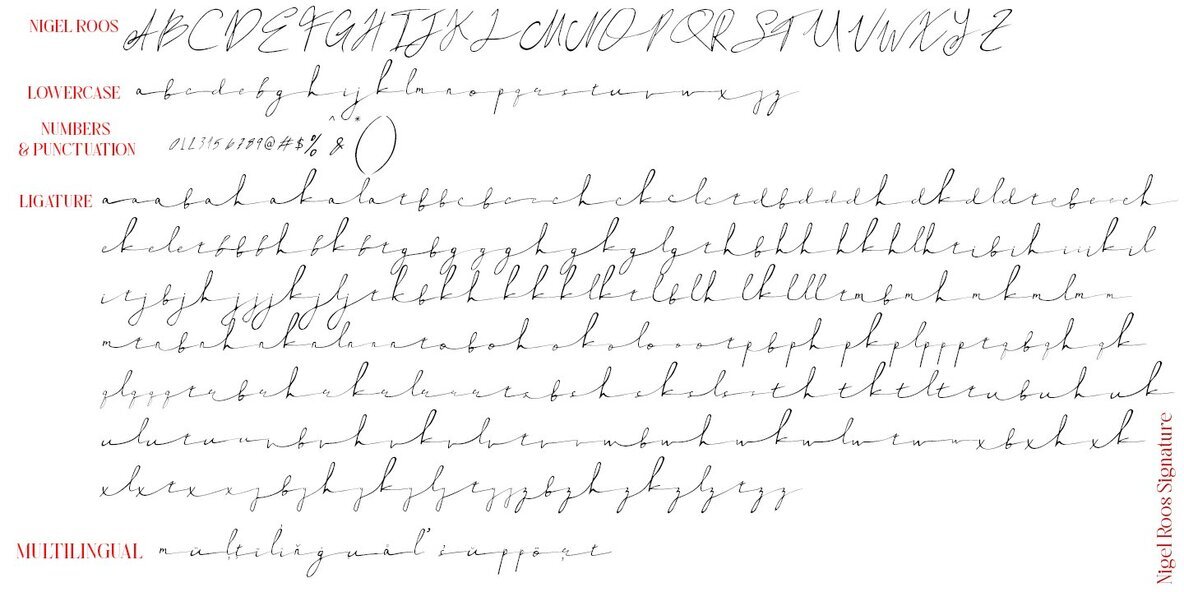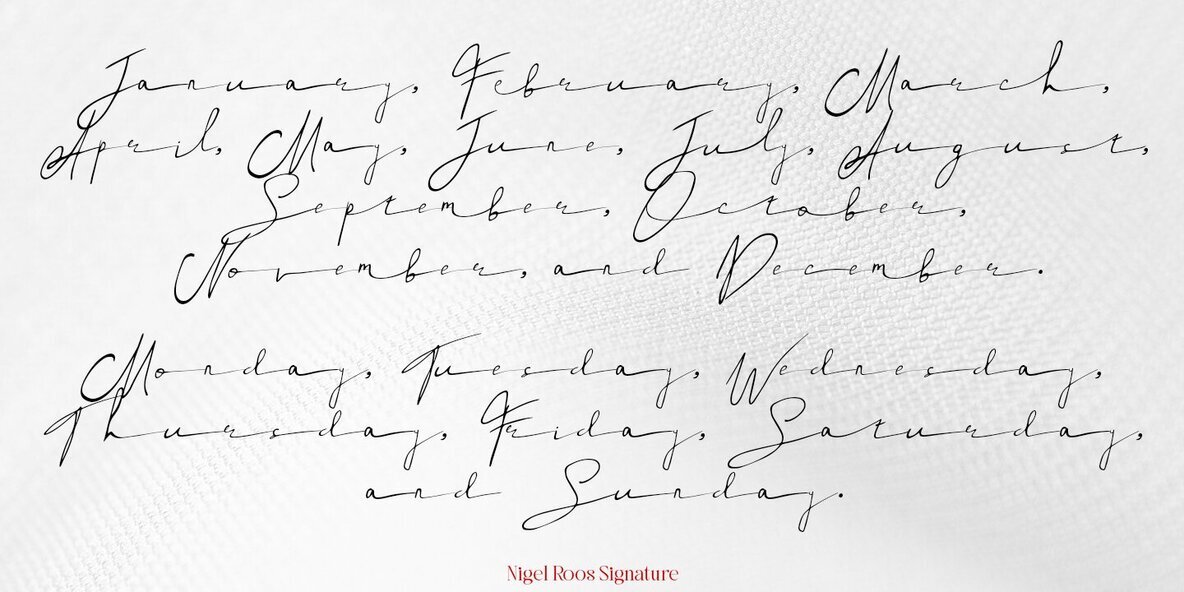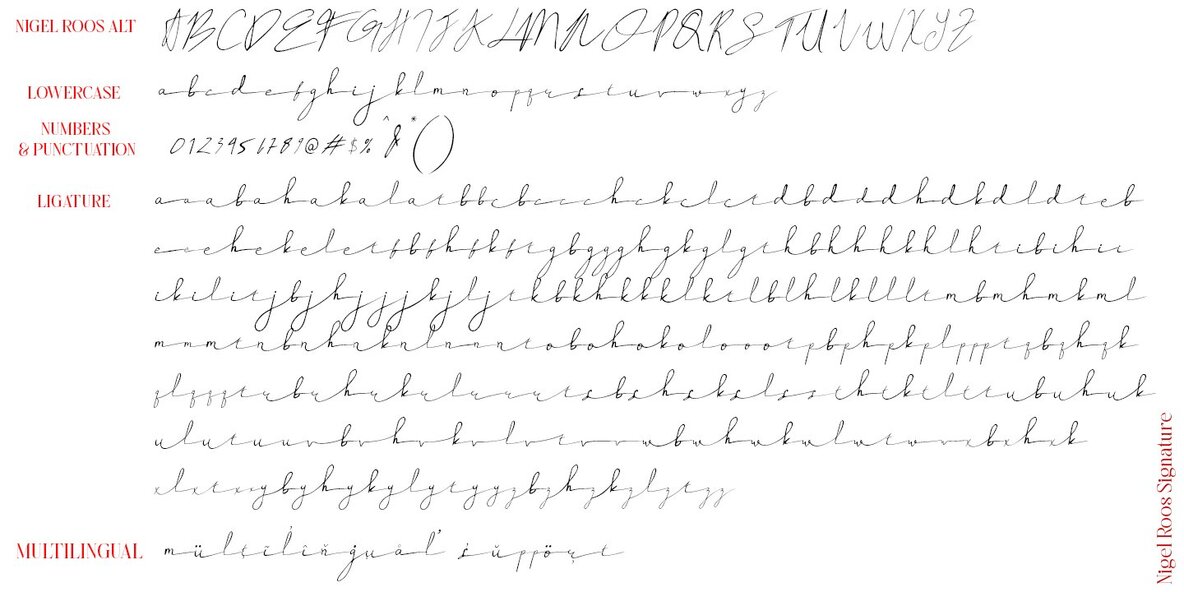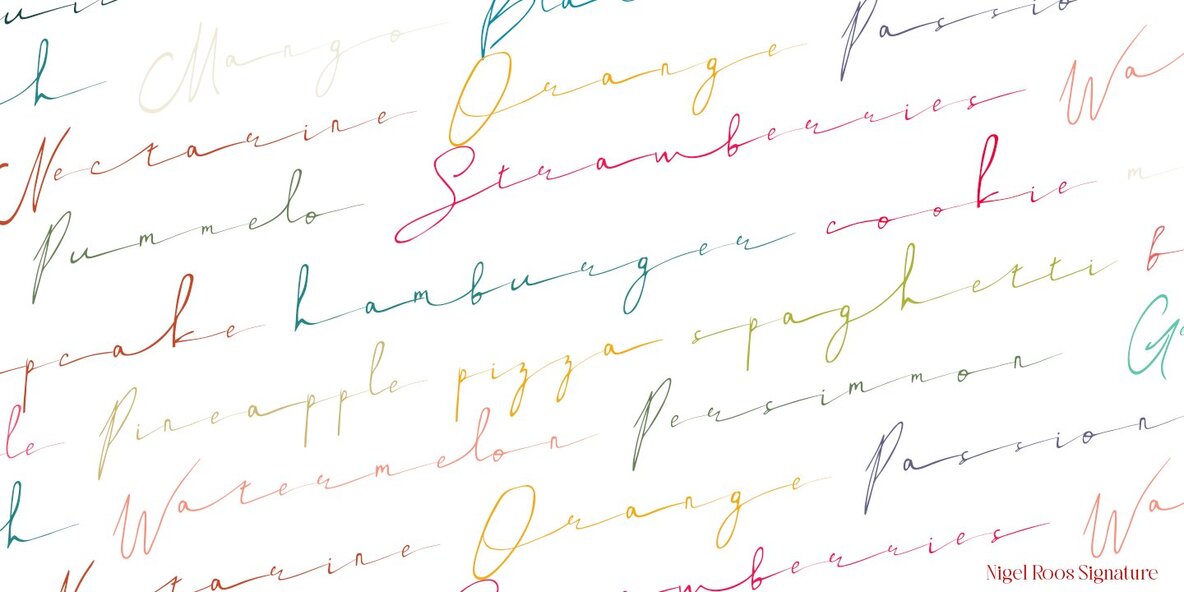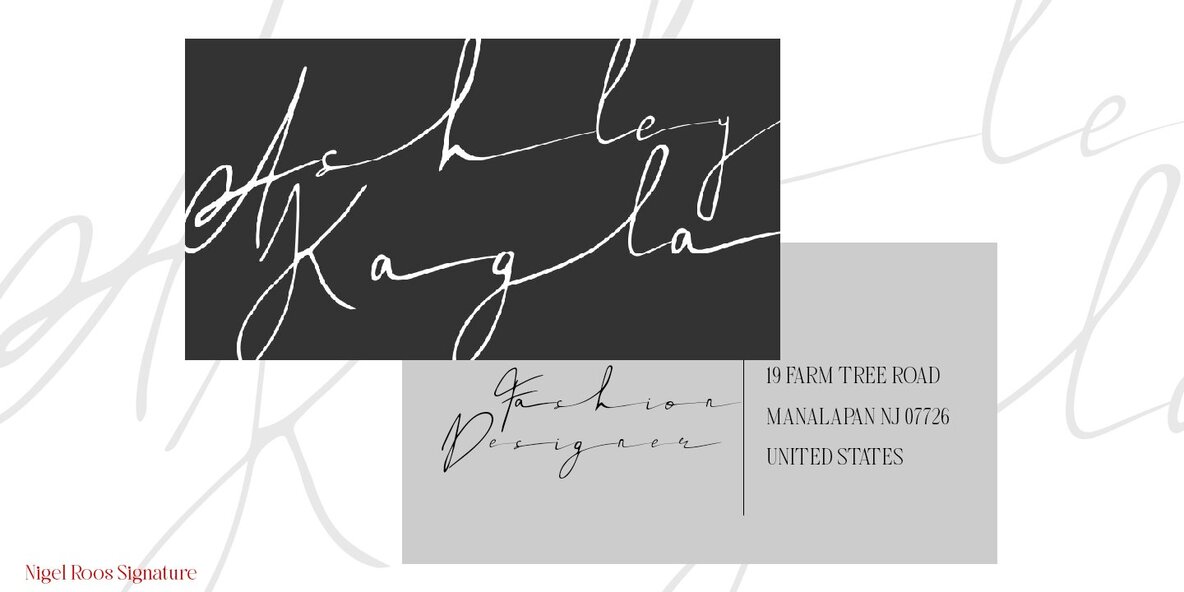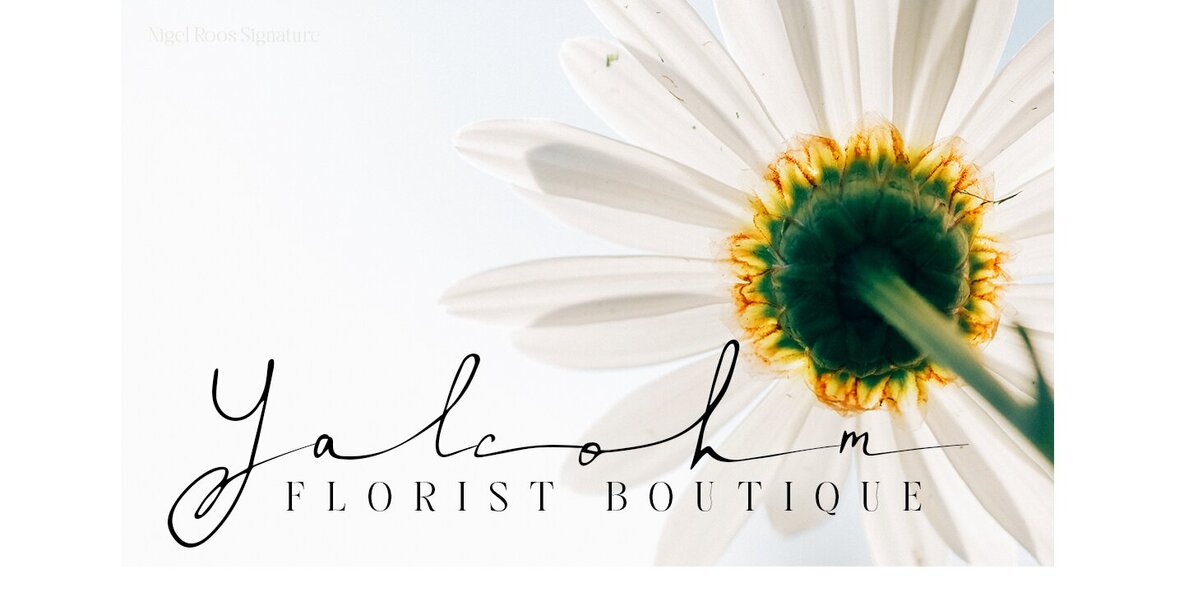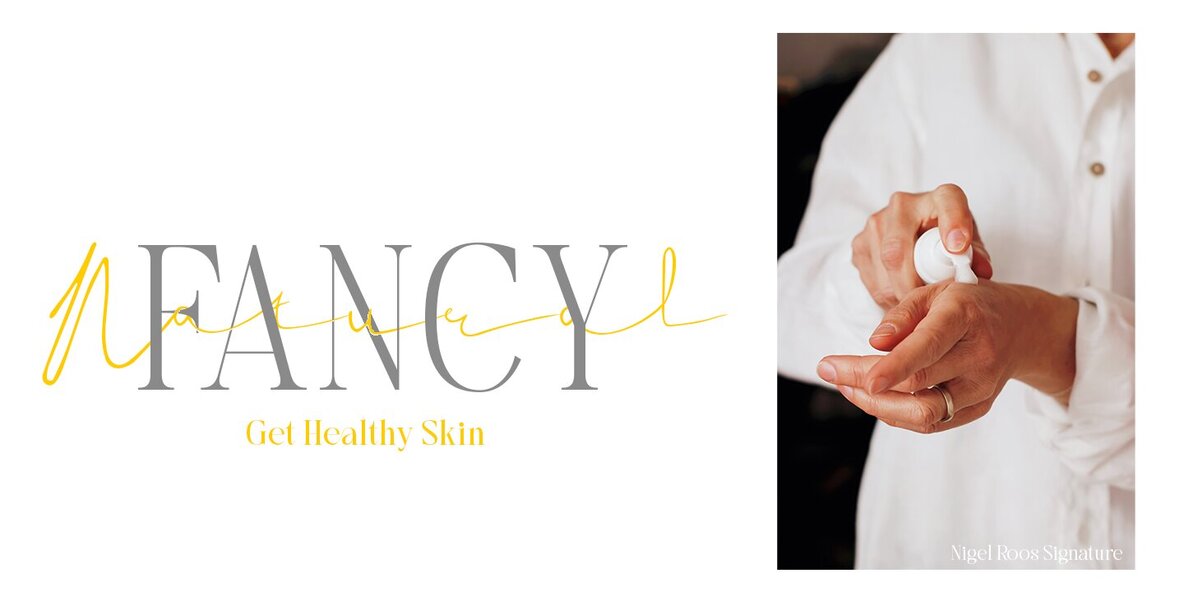
Nigel Roos Font
Nigel Roos offers a sophisticated touch to your design projects with its realistic signature style. Crafted by madeDeduk, this font provides two stylistic alternatives with extra swashes and over 140 ligatures in each version, ensuring every design has a handmade, authentic signature feel.Nigel Roos: Realistic Signature Font